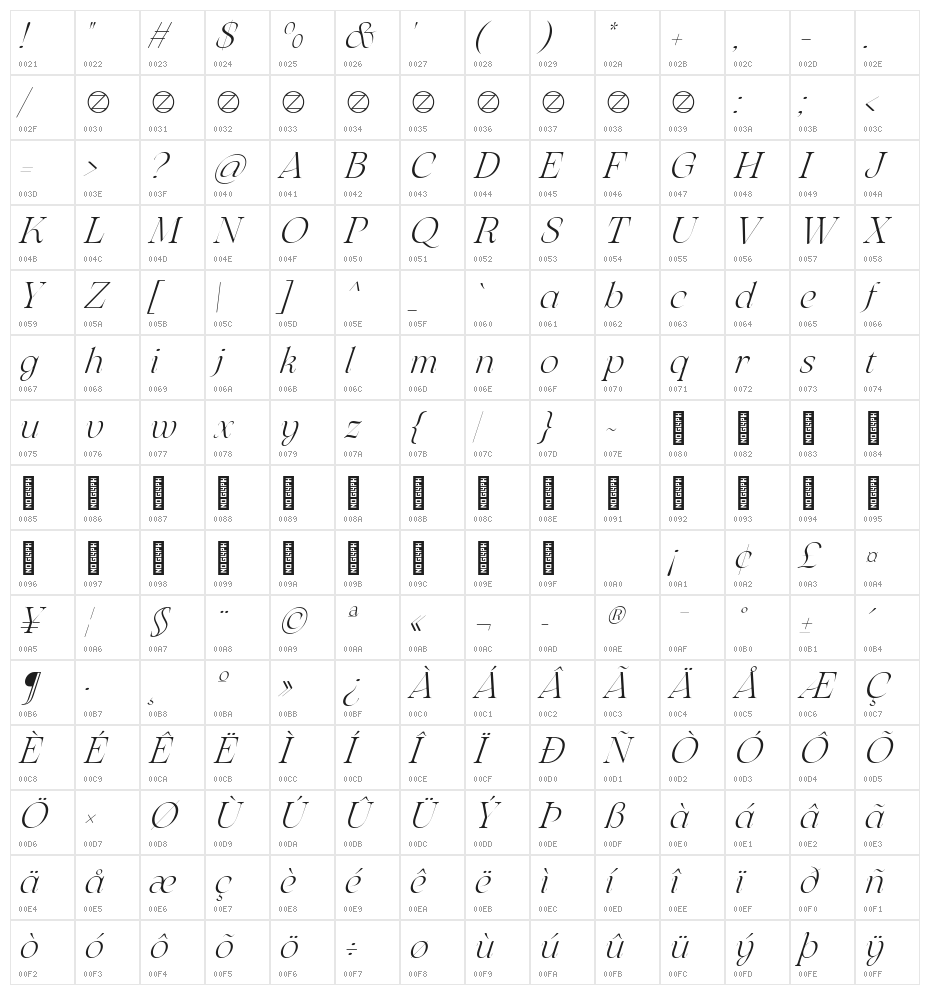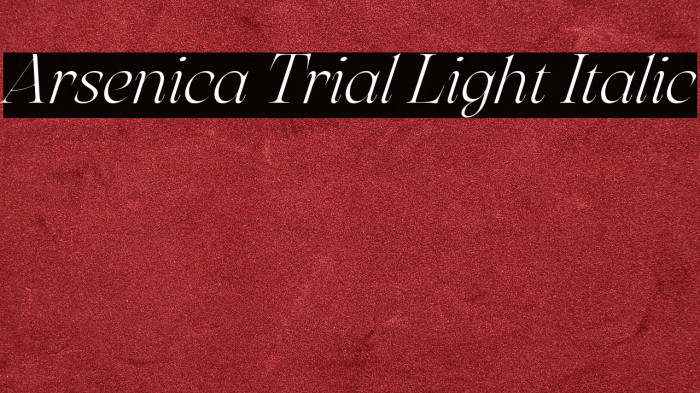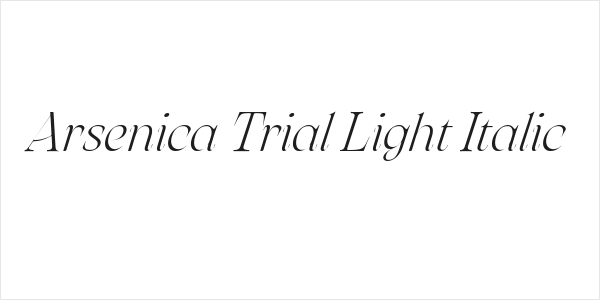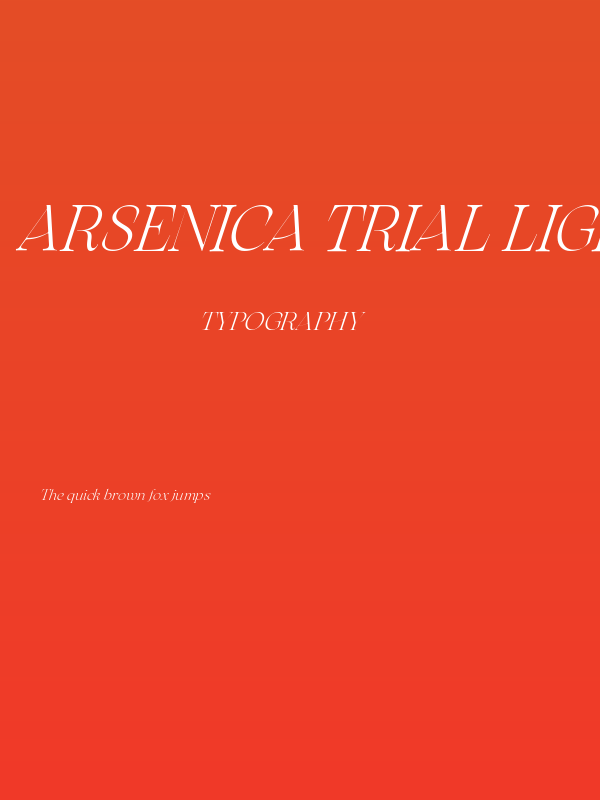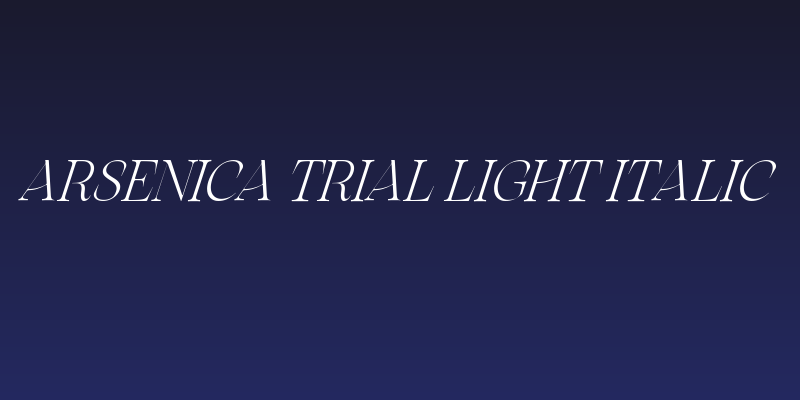
Arsenica Trial Light Italic Font
Arsenica Trial Light Italic Description
This elegant typeface features a refined and sophisticated design, characterized by its light weight and italic style. The letters are gracefully slanted, giving a sense of motion and fluidity. The strokes are thin and delicate, with a high contrast between thick and thin lines, enhancing its elegance. The serifs are subtle and understated, adding a touch of classicism without overpowering the overall modern aesthetic. The font maintains a balanced and harmonious appearance, making it suitable for a variety of applications where a touch of elegance and sophistication is desired.
| Overall Style | Elegant, Modern |
| Proposed Projects | Ideal for wedding invitations, luxury branding, editorial design, and elegant packaging. |